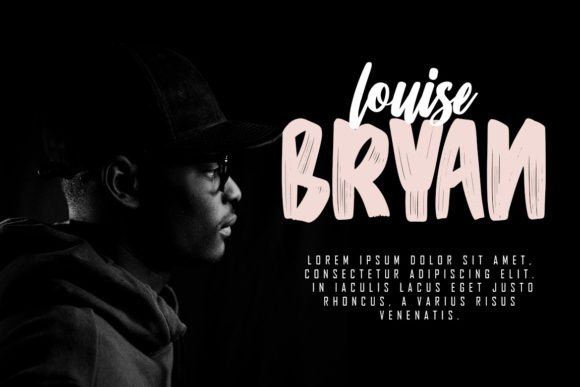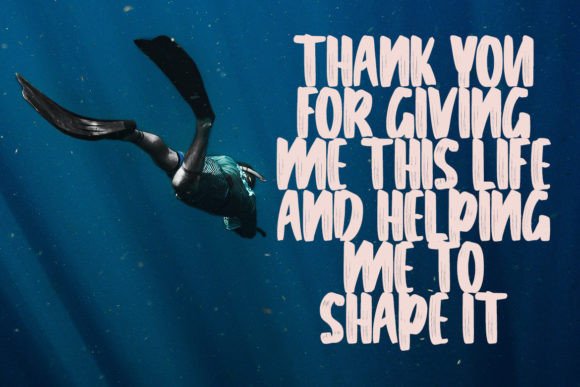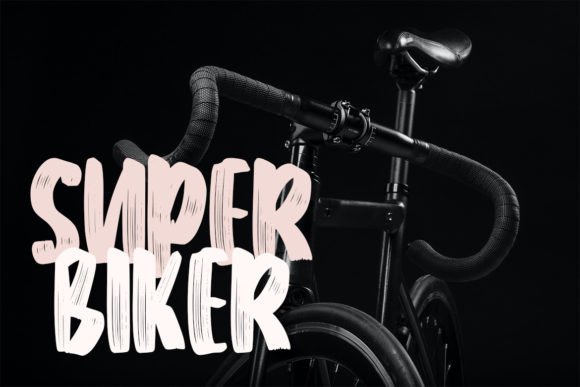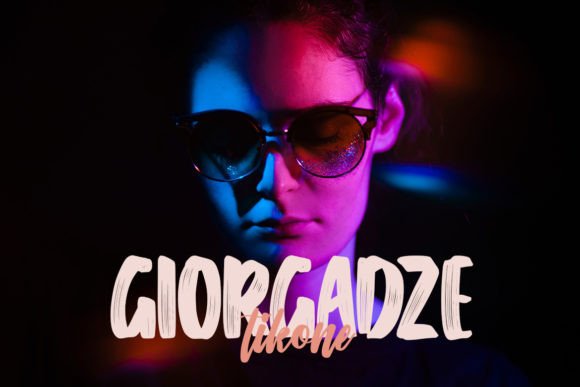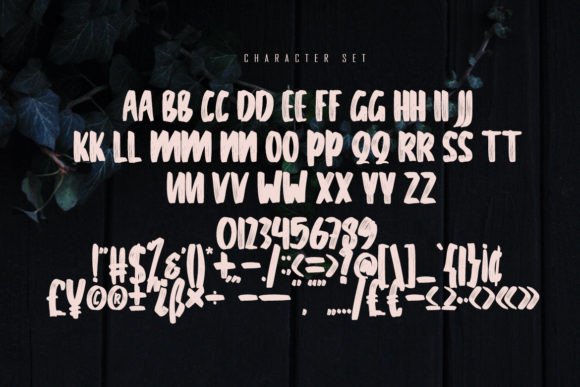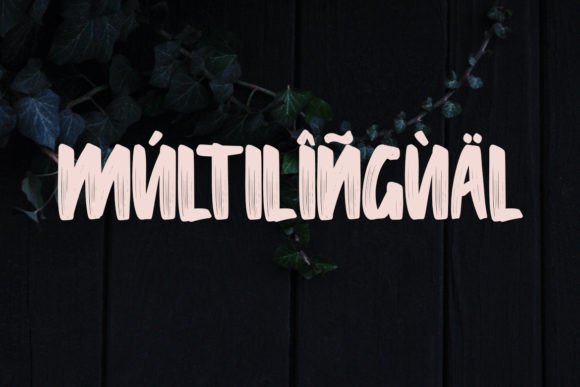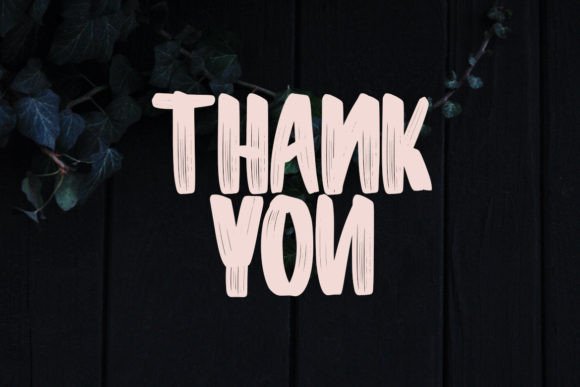
Brilya Font
About Brilya Font
“Brilya” is not just a font; it’s a typeface inspired by the organic strokes of natural brushes. Created with the rapid motion of a brush pen, it carries a bit of dryness and a realistic appearance. This font is a versatile choice, well-suited for a variety of design applications such as branding, magazine fashion design, offers, logos, product packaging, headlines, posters, merchandise, social media, and greeting cards.
The inspiration drawn from natural brushes is evident in the authentic and dynamic feel of “Brilya.” Each letter is crafted with the intention of mimicking the genuine strokes of a brush pen, creating an overall aesthetic that is both lively and organic. This makes it an ideal choice for projects that aim to convey a sense of natural and handcrafted beauty.
The suitability of “Brilya” for a range of design contexts becomes a standout feature. Whether it’s gracing a fashion magazine layout, enhancing a product package, or adding a personal touch to social media graphics, this font offers a versatile solution. Its adaptability to different design applications allows it to shine in various creative endeavors.
In branding, “Brilya” becomes a distinctive element that adds character and authenticity. The font’s suitability for headlines ensures that it captures attention and communicates a bold message. In social media graphics or greeting cards, it brings a personalized and handcrafted touch that resonates with the audience.
In summary, “Brilya” is not just a font; it’s a design tool inspired by the organic beauty of natural brushes. Let it be the choice for creating designs that are not only visually appealing but also convey a sense of authenticity and handcrafted charm. With “Brilya,” your projects can embrace the dynamic and realistic strokes that make each creation a work of art.